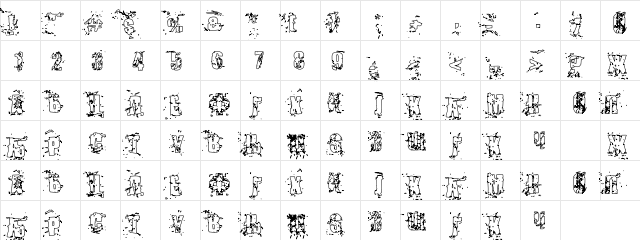
X_Killer Light
Design Context for X_Killer Typeface
X_Killer is a composed and adaptable typeface that performs quietly and consistently across a wide range of design contexts. The delicate stroke weight brings airiness and refinement to layouts.
Pro Tip: Use X_Killer in both headline and body roles to test its range before committing to a single application.